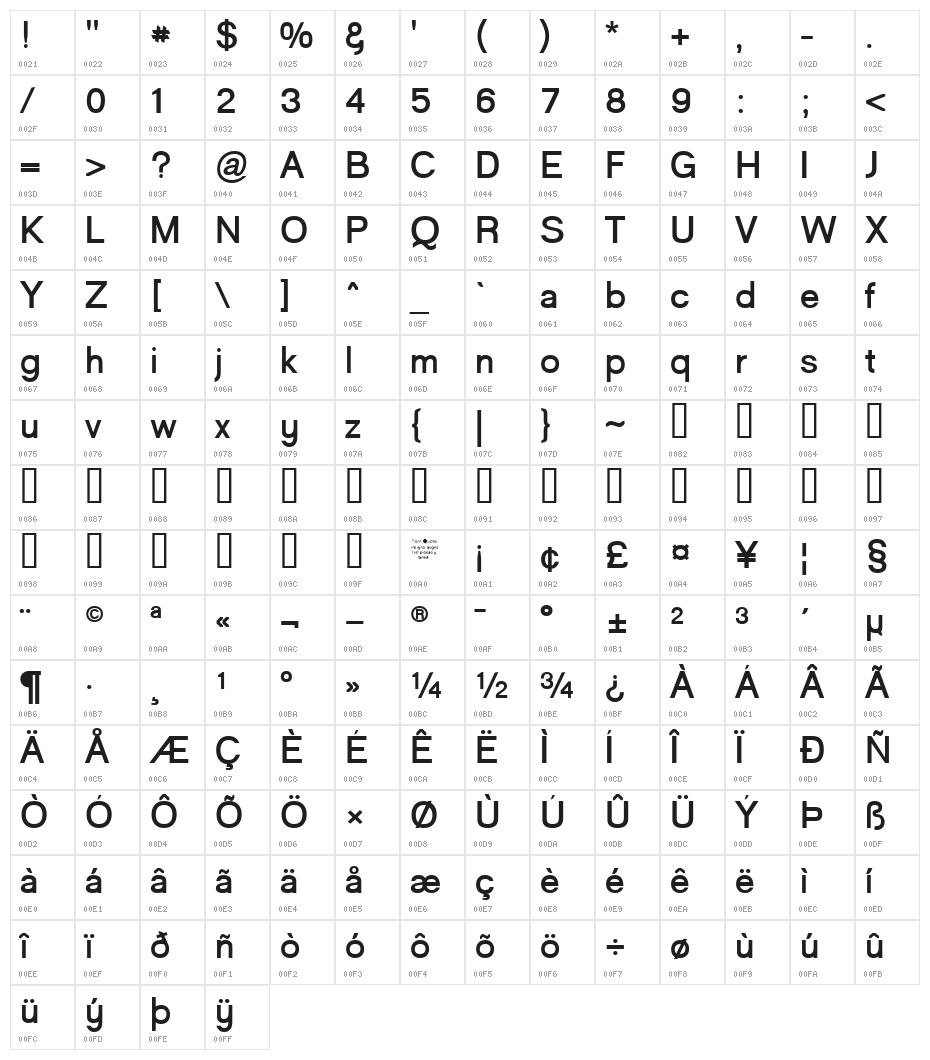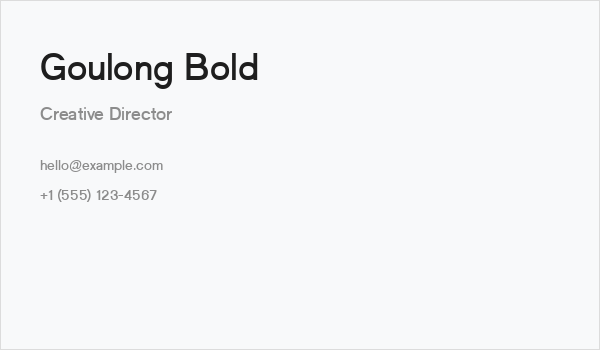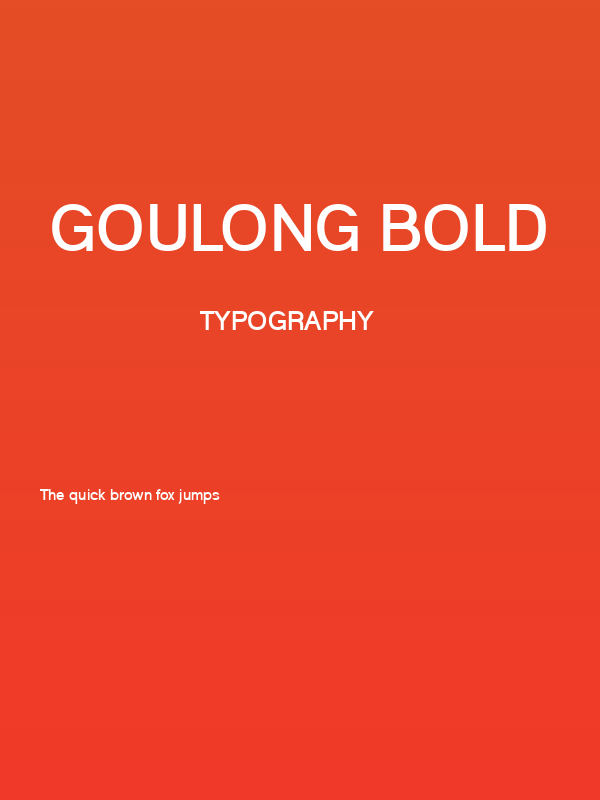
Goulong Bold Font
Goulong Bold Description
This font features a bold, clean, and modern sans-serif style with uniform stroke widths, providing a strong and assertive appearance. The characters are well-defined with a geometric influence, making them highly legible and suitable for various applications. The uppercase and lowercase letters maintain a consistent height and width, contributing to a balanced and harmonious look. The numerals are clear and distinct, matching the overall style of the alphabet. Special characters are included, offering versatility for different design needs.
| Use Case | Headlines, Logos, Digital Interfaces |
| Proposed Projects | Ideal for branding, advertising, headlines, and digital interfaces where clarity and impact are essential. |